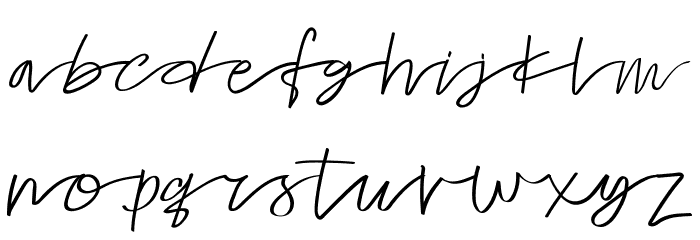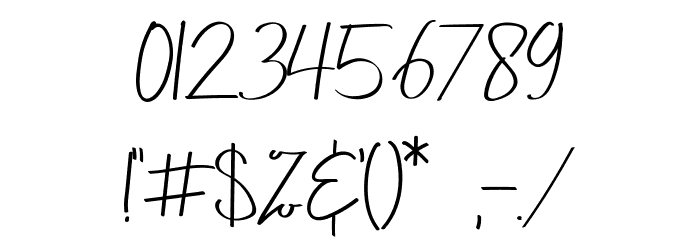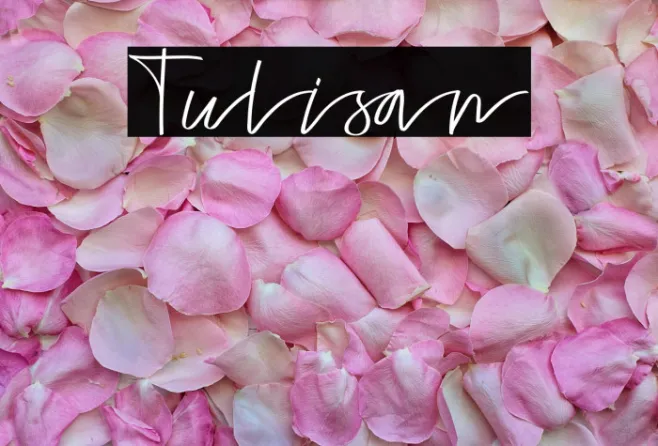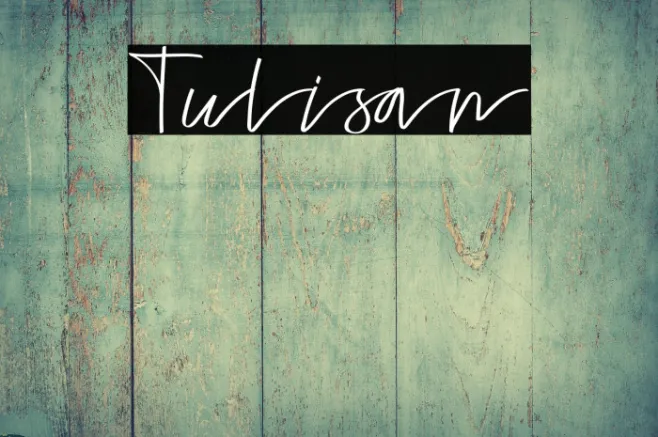
Tulisan Font
This font features a lively and flowing handwritten style, characterized by its fluid strokes and playful curves. The uppercase letters maintain a consistent height with a slight slant, while the lowercase letters exhibit a more pronounced cursive influence, enhancing the font's dynamic appearance. The numerals and special characters are crafted with the same attention to detail, ensuring a cohesive look across all glyphs. The overall design exudes a sense of casual elegance, making it suitable for projects that require a personal touch.
A lively handwritten font with fluid strokes and playful curves.
- Proposed Projects: Ideal for invitations, greeting cards, personal branding, and social media graphics.
- Overall Style: Casual, Elegant
- Use Case: Logos, Headlines, Invitations